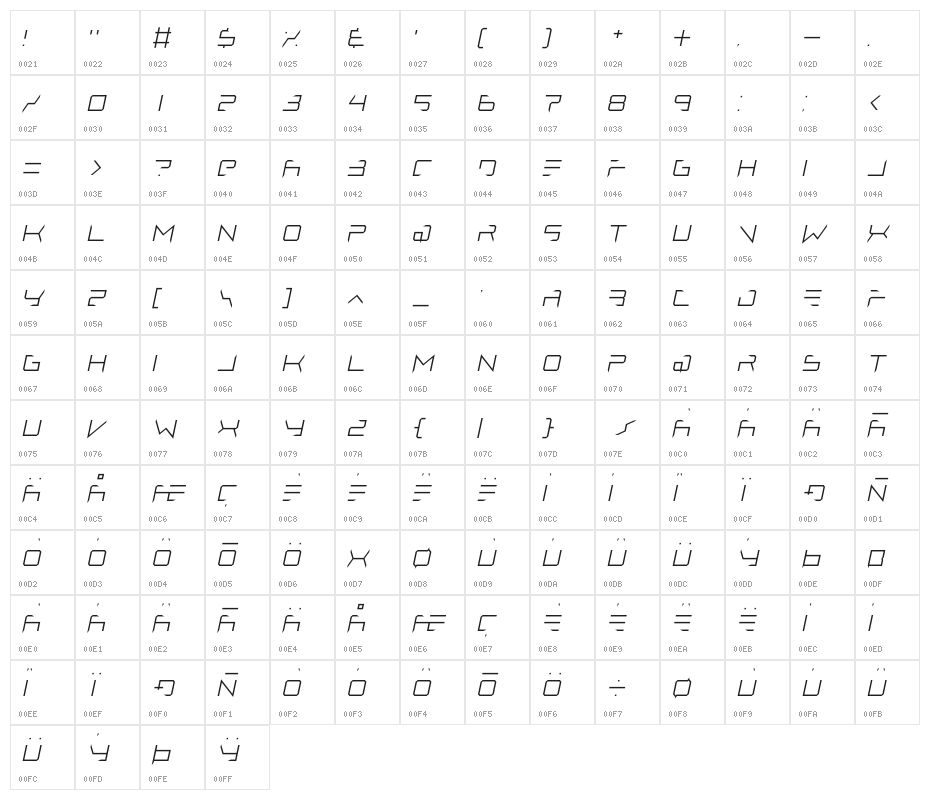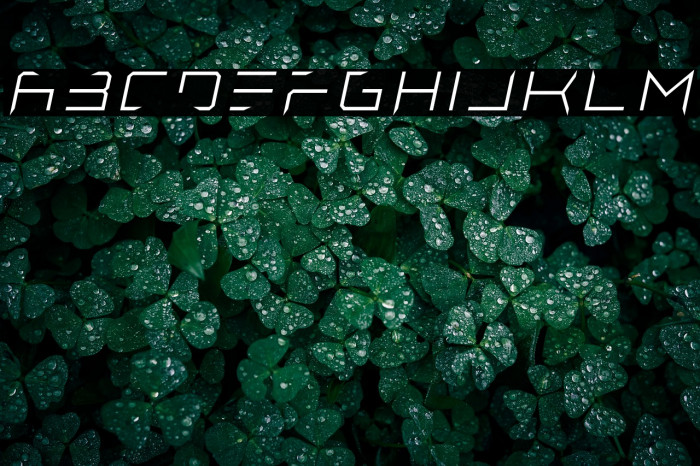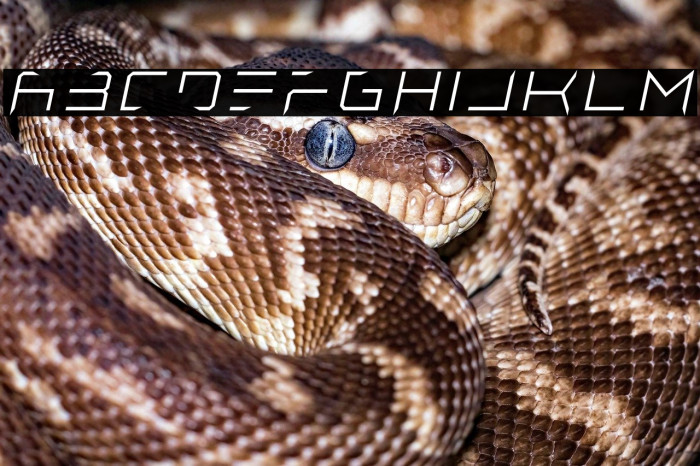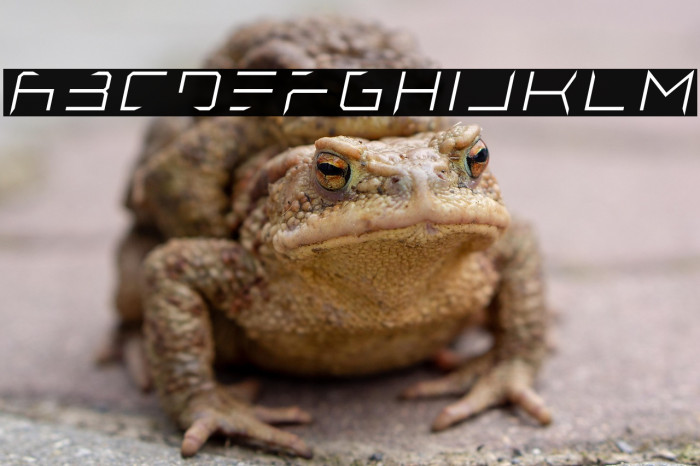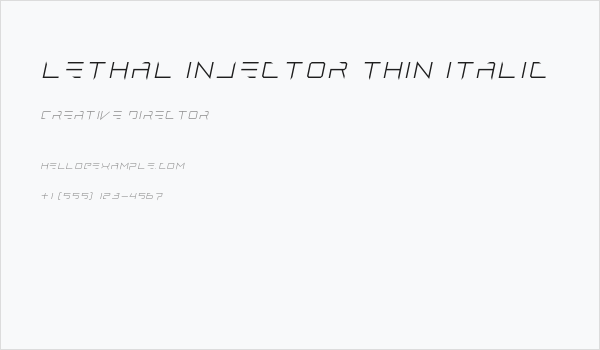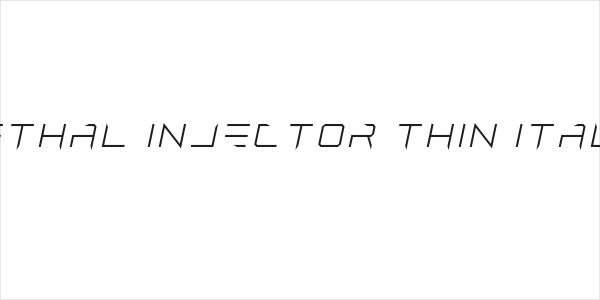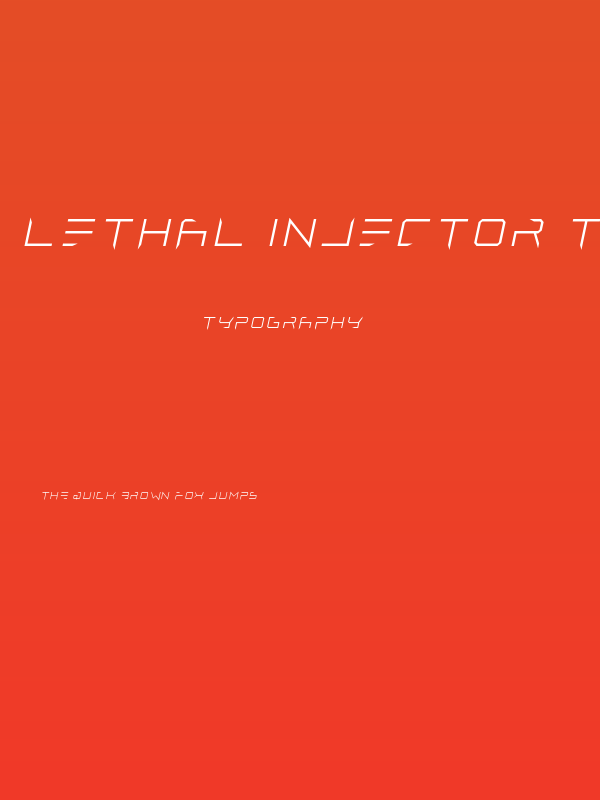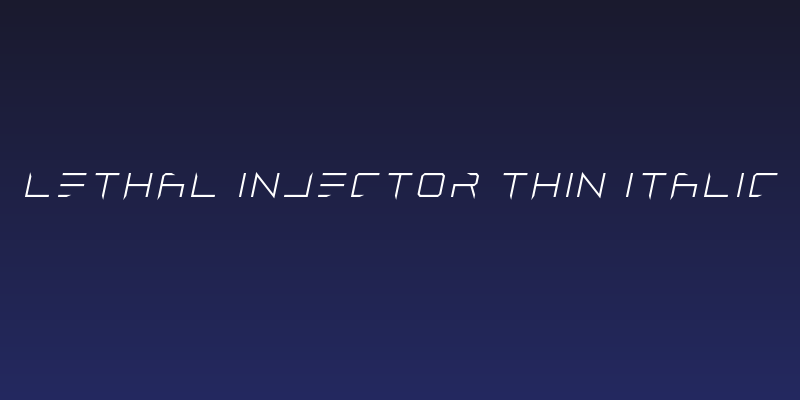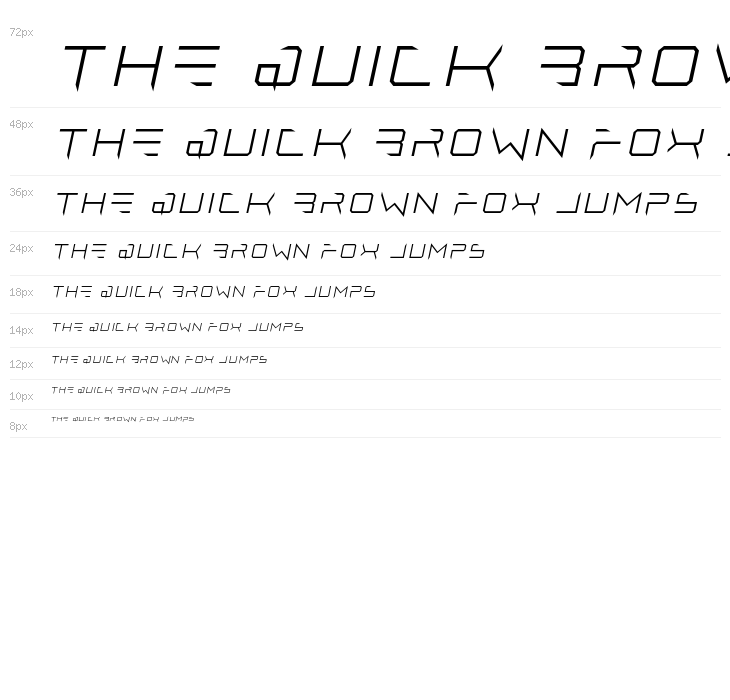
Lethal Injector Thin Italic Font
Lethal Injector Thin Italic Description
This font features a futuristic and angular design, characterized by sharp edges and a sleek, italicized form. The thin strokes give it a lightweight appearance, while the geometric shapes add a modern and technological feel. The characters are uniquely styled with distinct cuts and angles, creating a sense of motion and speed. This font is ideal for projects that require a contemporary and edgy look, such as technology branding, sci-fi themes, or modern advertising. The special characters maintain the same angular style, ensuring consistency across all text elements.
| Use Case | Logos, Headlines, Display text |
| Proposed Projects | Ideal for technology branding, sci-fi themes, modern advertising, and edgy design projects. |